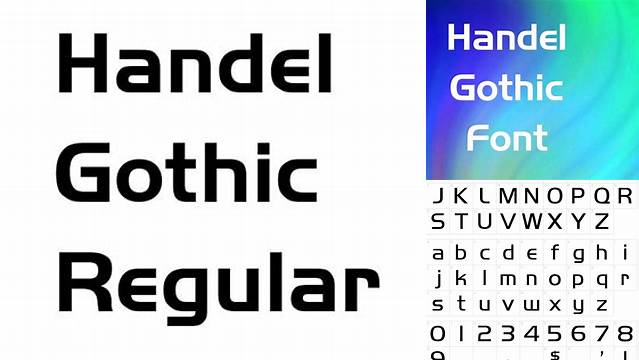
Hey guys! If you're on the hunt for a stylish and versatile font, you've probably stumbled upon Handel Gothic Std Regular. This font is a classic, and it's used everywhere from websites to print materials. But where can you get it, and is it actually free? Let's dive into everything you need to know about the Handel Gothic Std Regular font, including where to download it and how to use it effectively. We'll cover the font's history, its key features, and how to ensure you're getting it legally.
What is Handel Gothic Std Regular?
First things first, what exactly is Handel Gothic Std Regular? Think of it as a clean, modern typeface that's easy to read and visually appealing. It belongs to the sans-serif family, meaning it doesn't have those little decorative strokes at the end of the letters (like serifs do). This makes it a great choice for both digital and print applications. Handel Gothic Std Regular is known for its balanced proportions and simple design, making it a go-to font for designers and anyone looking for a clear and legible font. Its neutrality allows it to fit seamlessly into a wide array of design projects. This font is a part of the Handel Gothic family, which includes different weights such as bold and italic versions, giving you plenty of options. You might have seen this font on websites, in branding materials, or even in the interfaces of your favorite apps. Its versatility is one of its best qualities!
This font is commonly used for:
- Headlines: Its boldness and readability make it perfect for drawing attention.
- Body text: The clear letterforms are easy to read even in smaller sizes.
- Logos: Its clean lines create a modern look that's great for brand identity.
- Web Design: The font renders well on screens, making it ideal for websites.
- Print Materials: From brochures to posters, this font looks great in print.
Using Handel Gothic Std Regular in Your Designs
Now, for the fun part – using the Handel Gothic Std Regular font in your designs! Since the original font might not be available for free, you can experiment with similar fonts. These fonts can bring a similar vibe to your projects. Here are some tips to make the most of this versatile font style:
- Pairing: Handel Gothic is known for its clean lines and modern feel. It pairs beautifully with fonts that have a similar simplicity. Consider using it with a contrasting font for headings or a subtle font for body text to create visual interest.
Conclusion: Handel Gothic Std Regular and Beyond!